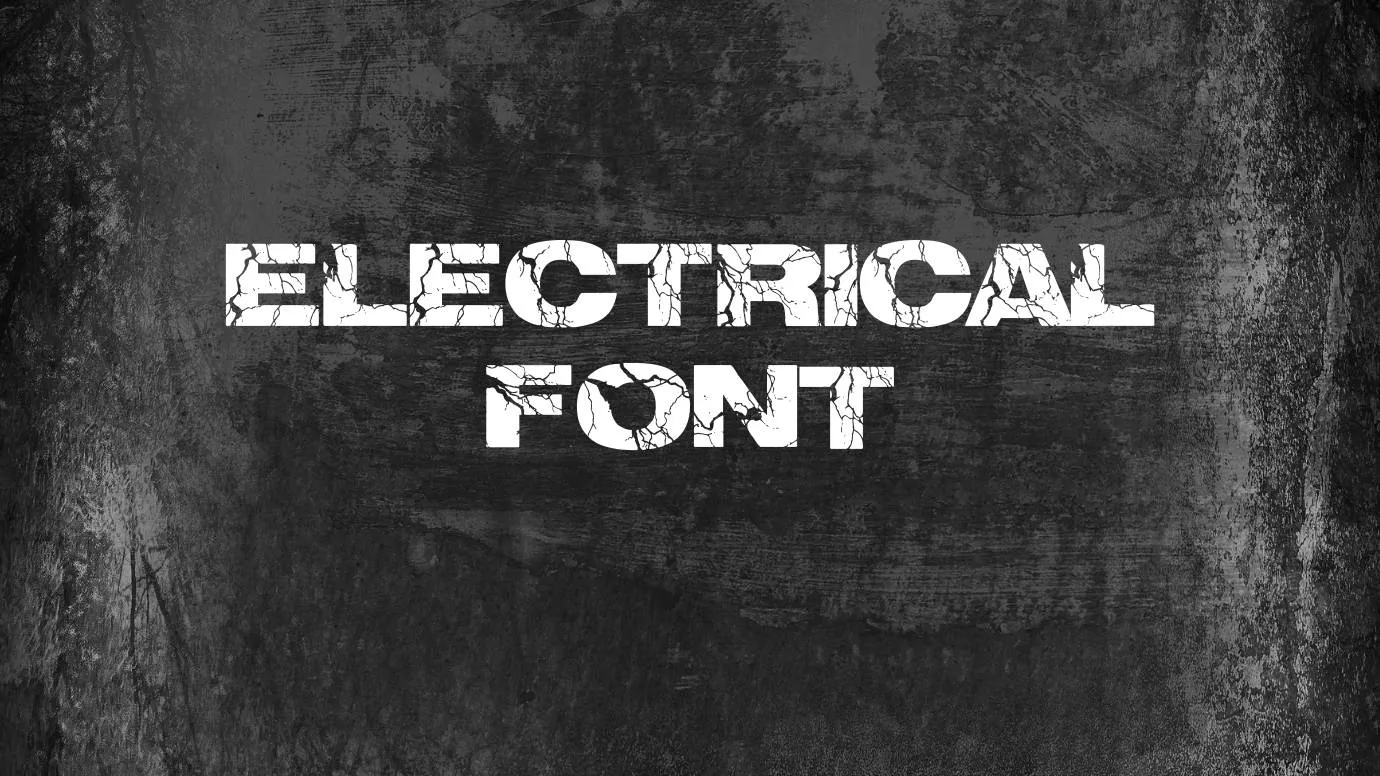
Electrical Font Family is a beautiful fancy typeface that was designed by Xerographer Fonts. It comes in rough bold characters. All characters of this font have scratches that show a unique look.
The symbols of this font are best for fantastic designs. This font is most suitable for pairing with a souvenir font for unique design purposes.
Electrical Font